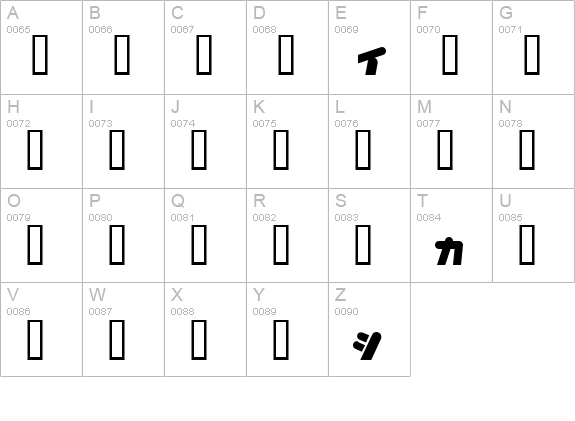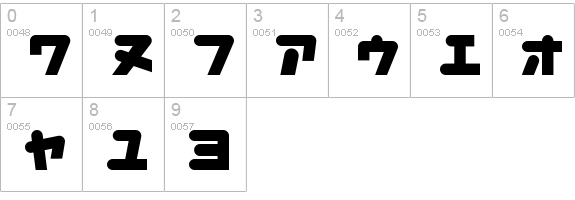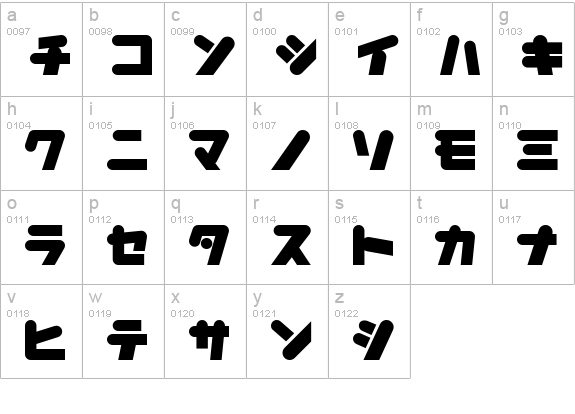
I2HappyChicken Font Details
Introducing the delightful I2HappyChicken font, a playful and charming typeface that is sure to bring a smile to your face! This font embodies the essence of happiness and joy, with its quirky and whimsical design. Each letter is carefully crafted to exude a sense of fun and excitement, making it perfect for any project that needs a touch of lightheartedness. But what makes I2HappyChicken font even more amazing is that it is available for free! Yes, you read that right - this incredible font can be yours without spending a dime. Now, you can add a dash of cheerfulness to your designs without breaking the bank. To download I2HappyChicken font, simply head over to FontsMarket.com, the ultimate destination for font enthusiasts. There, you will find an extensive collection of high-quality fonts, including this gem. With just a few clicks, you can have I2HappyChicken font in your possession, ready to bring happiness to your creative projects. Whether you're designing a birthday invitation, creating a whimsical logo, or adding a touch of playfulness to your social media graphics, I2HappyChicken font will be your go-to choice. Its versatility allows it to shine in a variety of settings, making it a must-have for any designer or creative professional. So why wait? Embrace the joy and excitement that I2HappyChicken font brings and let your imagination run wild. Download this free font today from FontsMarket.com and watch as your designs come alive with happiness!